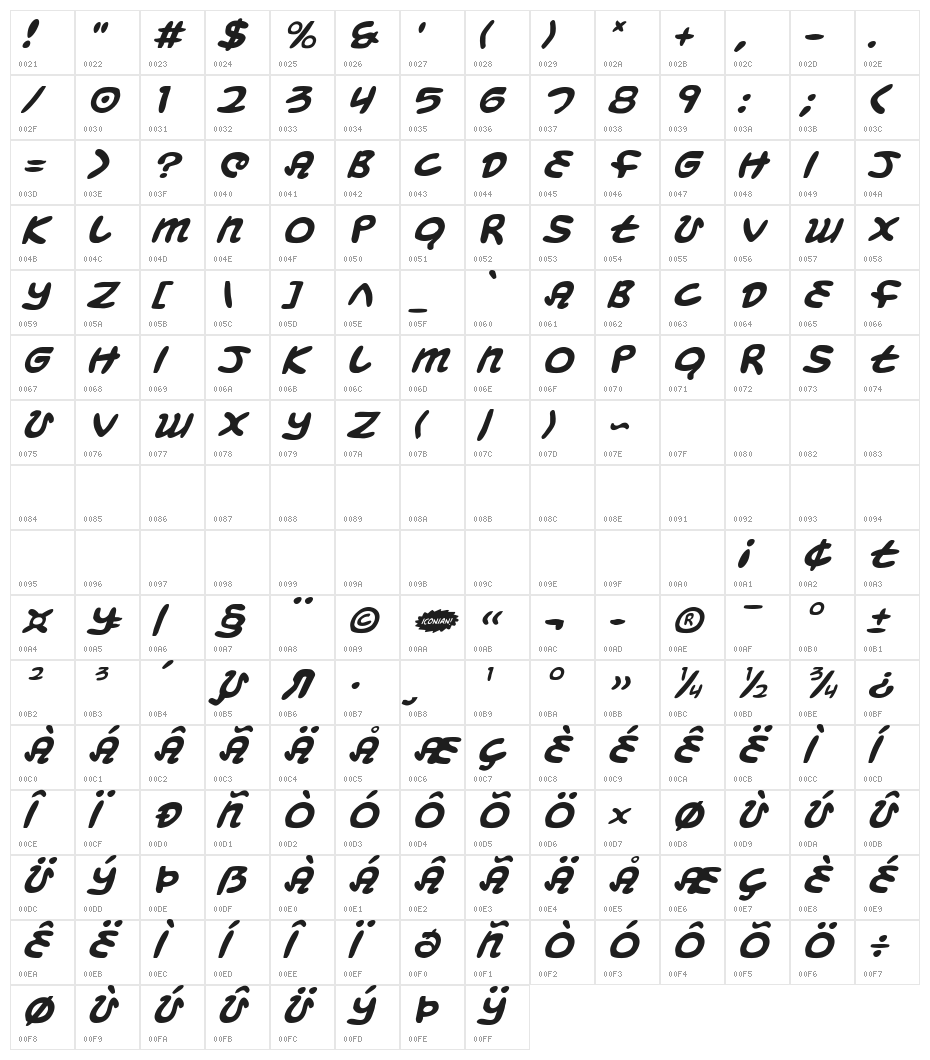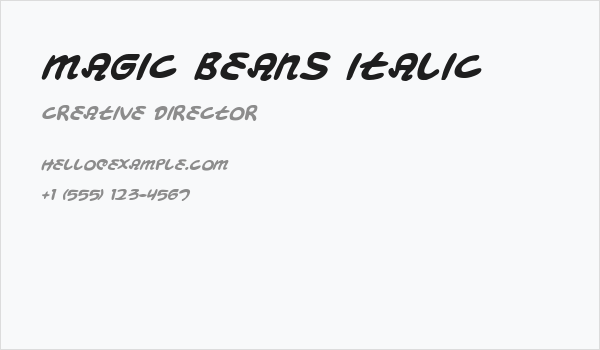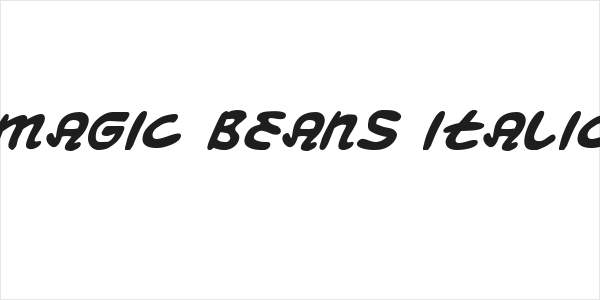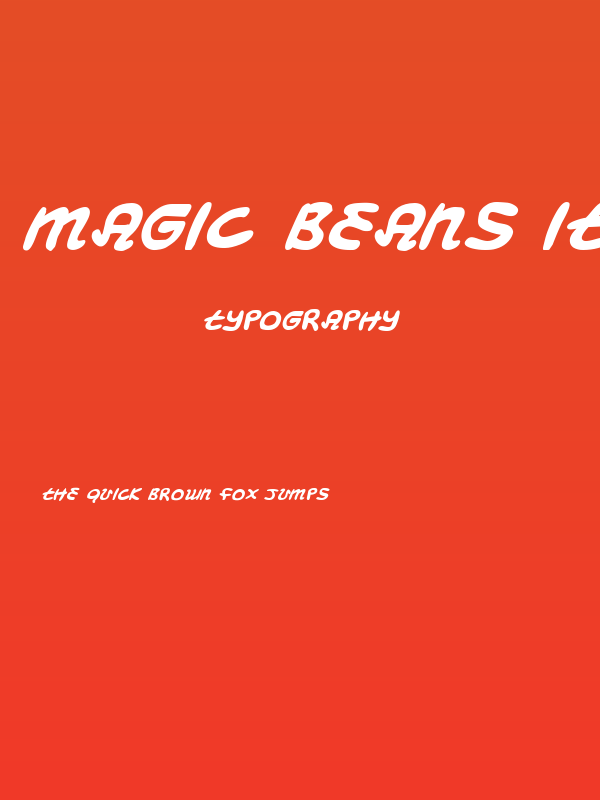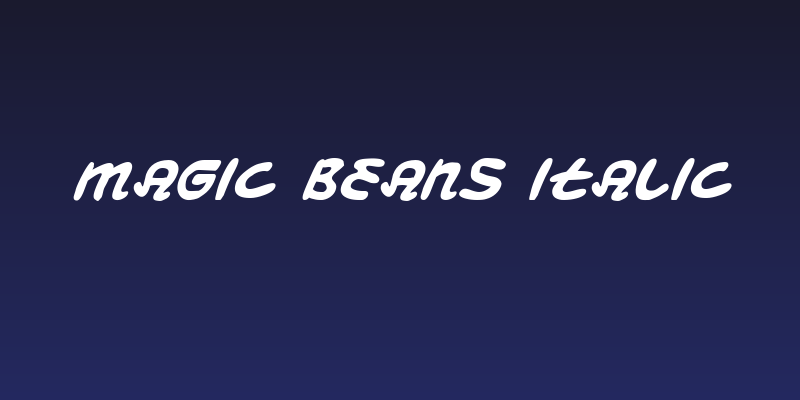
Magic Beans Italic Font
Magic Beans Italic Description
This font features a playful and dynamic style with a handwritten appearance. The characters are bold and slightly slanted, giving an italicized effect that enhances its casual and friendly look. The strokes are thick and rounded, contributing to a sense of warmth and approachability. The uppercase and lowercase letters maintain a consistent flow, while the numerals and special characters complement the overall design with their cohesive style. This font is well-suited for projects that require a touch of personality and informality.
| Proposed Projects | Ideal for greeting cards, playful branding, children's books, and casual invitations. |